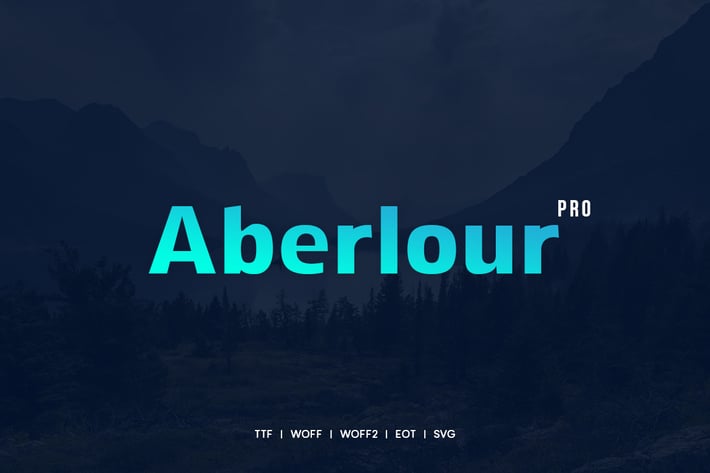
Aberlour - Modern Typeface + WebFonts
Aberlour Display Sans Typeface
Another modern fantastic sanserif typeface from Unbranded, which delivers a remarkable unique typography style. The pack includes OTF, TTF and Web Fonts (all EOT, SVG, TTF, WOFF included).
Font Designed and Crafted by Mathew Gris, Distributed by Webhance Studio.